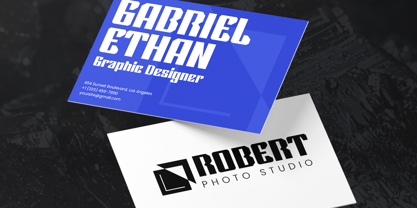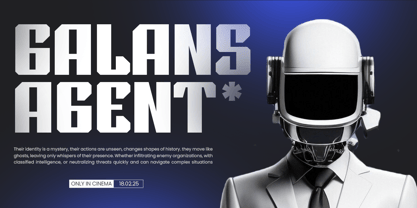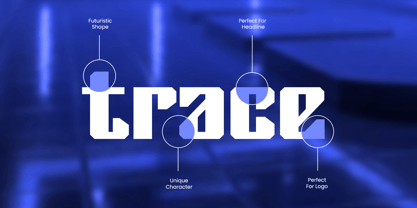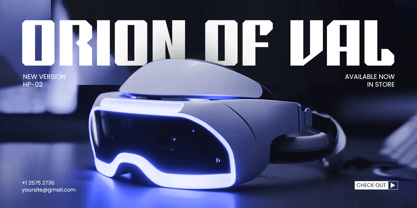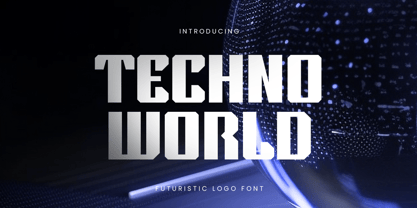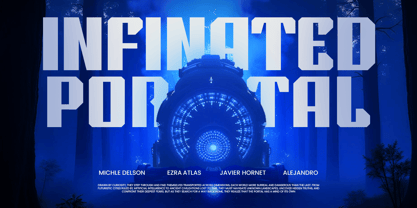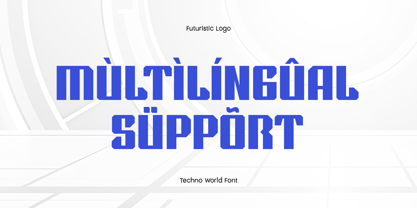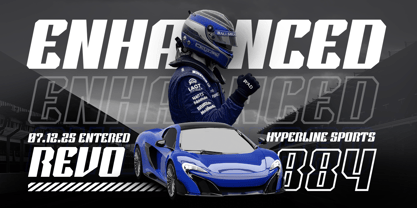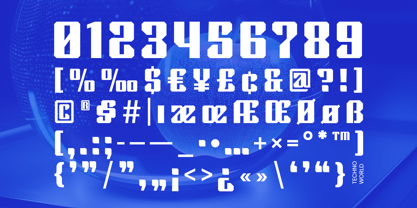
Techno World - Futuristic Logo Font
Techno World is a bold futuristic font designed for high-tech branding, digital interfaces, and sci-fi-inspired visuals. With its sleek, geometric structure and cyberpunk aesthetics, this font is perfect for technology brands, gaming logos, space-themed projects, and electronic music covers.
Its sharp edges and bold letterforms create a strong, high-impact presence, making it ideal for futuristic logos, digital banners, esports branding, and sci-fi movie titles. The minimal yet edgy design ensures readability while maintaining a modern, cutting-edge look.
Step into the future of typography with Techno World, where digital innovation meets sleek futuristic design.
Techno World - Futuristic Logo Font Features:
Ready with 4 Font Styles
Bold, geometric, and futuristic letterforms
Perfect for logos, gaming, and tech branding
Punctuation, numbers, and symbols included
Uppercase and lowercase letters
OpenType features for enhanced creativity
Multilingual support for:
Afrikaans, Albanian, Basque, Breton, Catalan, Croatian, Czech, Danish, Dutch, English, Estonian, Finnish, French, Galician, German, Hungarian, Icelandic, Indonesian, Irish, Italian, Latvian, Lithuanian, Luxembourgish, Maltese, Norwegian, Polish, Portuguese, Romanian, Slovak, Slovenian, Spanish, Swedish, Turkish, Welsh, and more.
Create futuristic and high-tech designs with Techno World—the ultimate sci-fi and digital font for bold and modern typography.